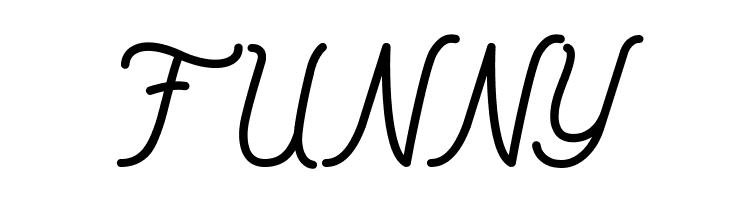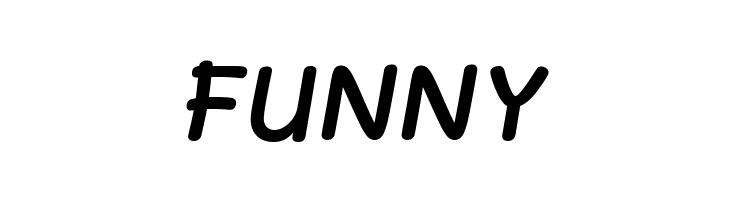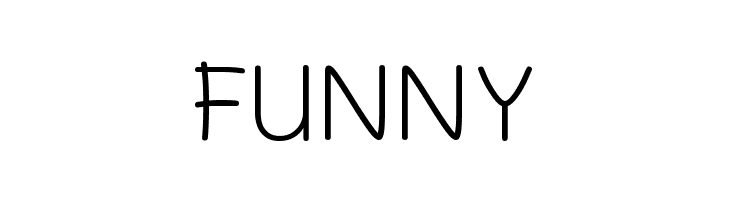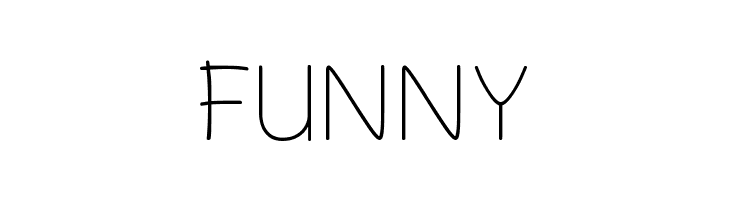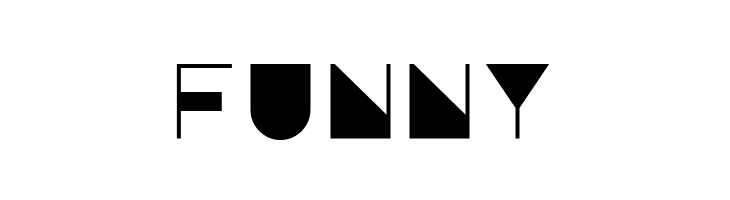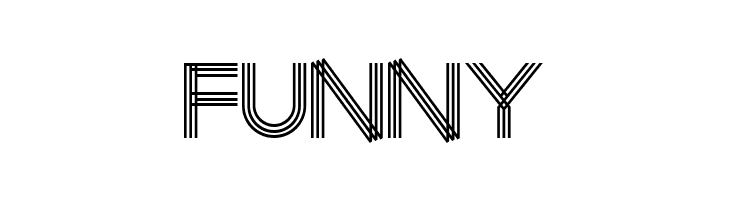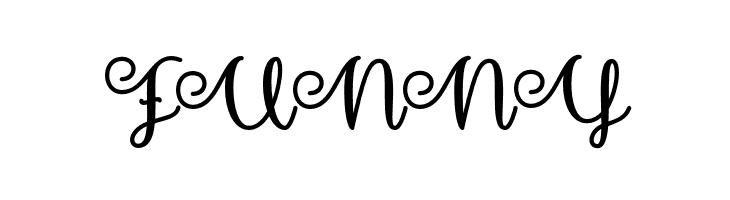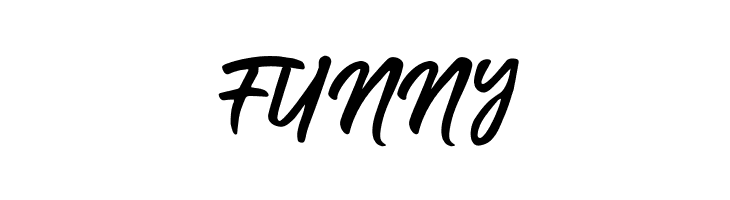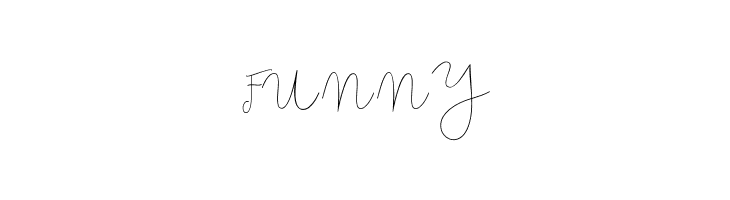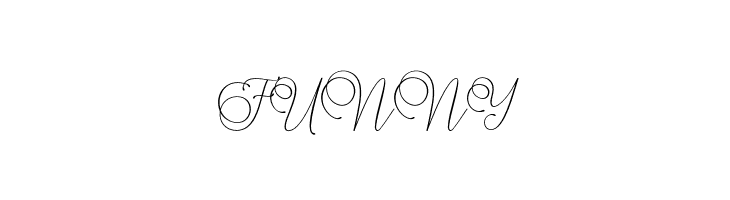
A bold, italic font with a modern and dynamic style.
A modern, light sans-serif font with clean lines and balanced proportions.
A sleek, modern, light italic font with medium contrast and smooth strokes.
A modern, geometric sans-serif font with clean lines and balanced characters.
A modern, italicized font with clean lines and a dynamic style.
A minimalist, thin font with a modern and elegant design.
A thin, italic font with a modern, minimalist design.
A graceful and elegant script font with flowing, interconnected letters.
A dynamic, cursive script font with elegant, flowing strokes.
A geometric, monospaced font with bold, decorative uppercase letters and clean lowercase characters.
A bold, hand-drawn font with a playful, comic book style.
A bold and expressive script font with fluid, cursive strokes.
A bold, expressive script font with dynamic flow and elegant curves.
A modern, multi-line geometric font with a bold and artistic style.
A decorative, multi-line font with a geometric and modern style.
A bold, distressed font with a hand-drawn, grunge aesthetic.
A bold, rounded, and playful font with a friendly and approachable style.
A bold, italic, and rounded font with a playful and dynamic style.
A playful, hand-drawn font with thin strokes and rounded edges.
A sleek, elegant, and modern italic font with a light, flowing style.
A smooth, flowing italic font with a friendly and elegant style.
A playful, casual handwritten font with rounded, consistent strokes.
A light, elegant italic font with smooth, continuous strokes and a modern aesthetic.
A playful, rounded font with smooth curves and a friendly appearance.
A smooth, italic font with a friendly, rounded style and medium weight.
A playful, rounded, and casual handwritten font with excellent readability.
A playful, rounded font with a semi-bold weight and smooth curves.
A playful, semi-bold italic font with rounded characters.